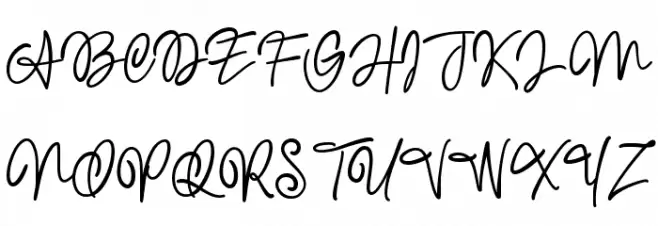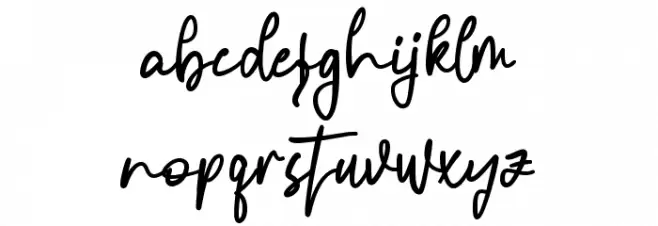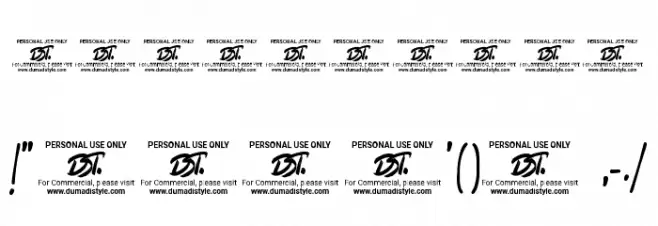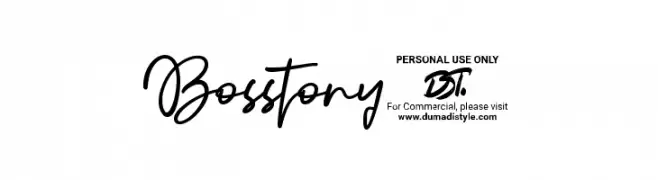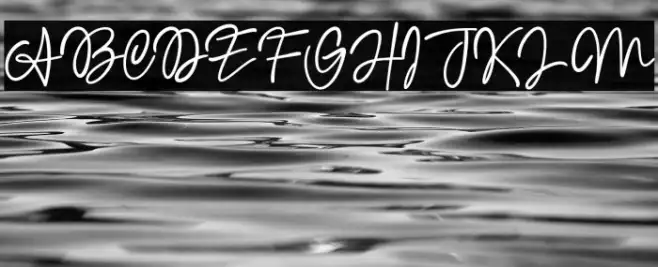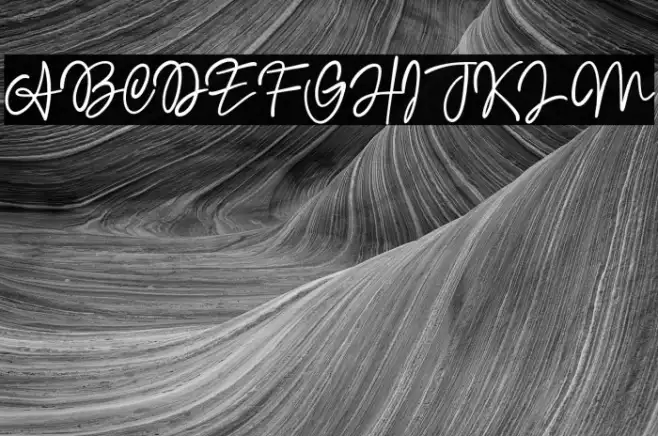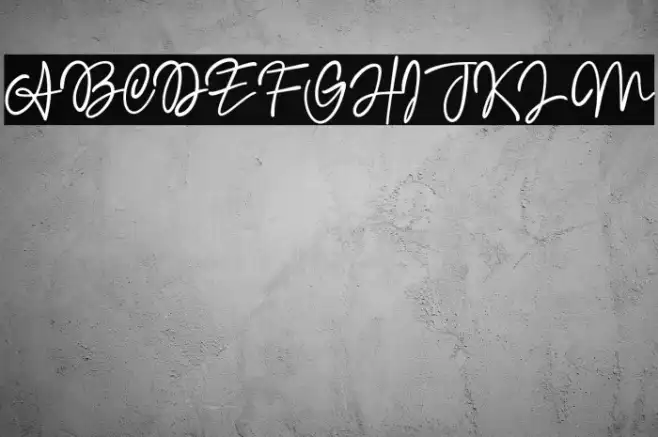
Bosstony 1
A flowing, cursive script font with a handwritten style, featuring smooth curves and elegant loops.
Elegant cursive script with a handwritten feel.
- Proposed Projects: Invitations, greeting cards, branding, social media graphics.
- Category: Script
- Overall Style: Decorative
- Use Case: Logos, Headlines